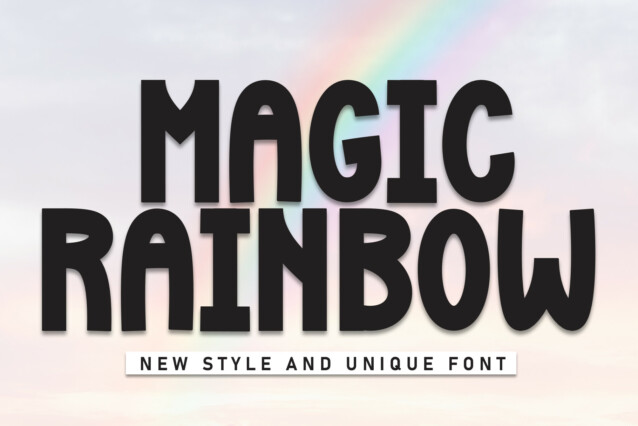
Magic Rainbow Display Font
Magic Rainbow Display Font is a fun and positive display font. Add it to your cheerful projects and you will love its versatility and playfulness!